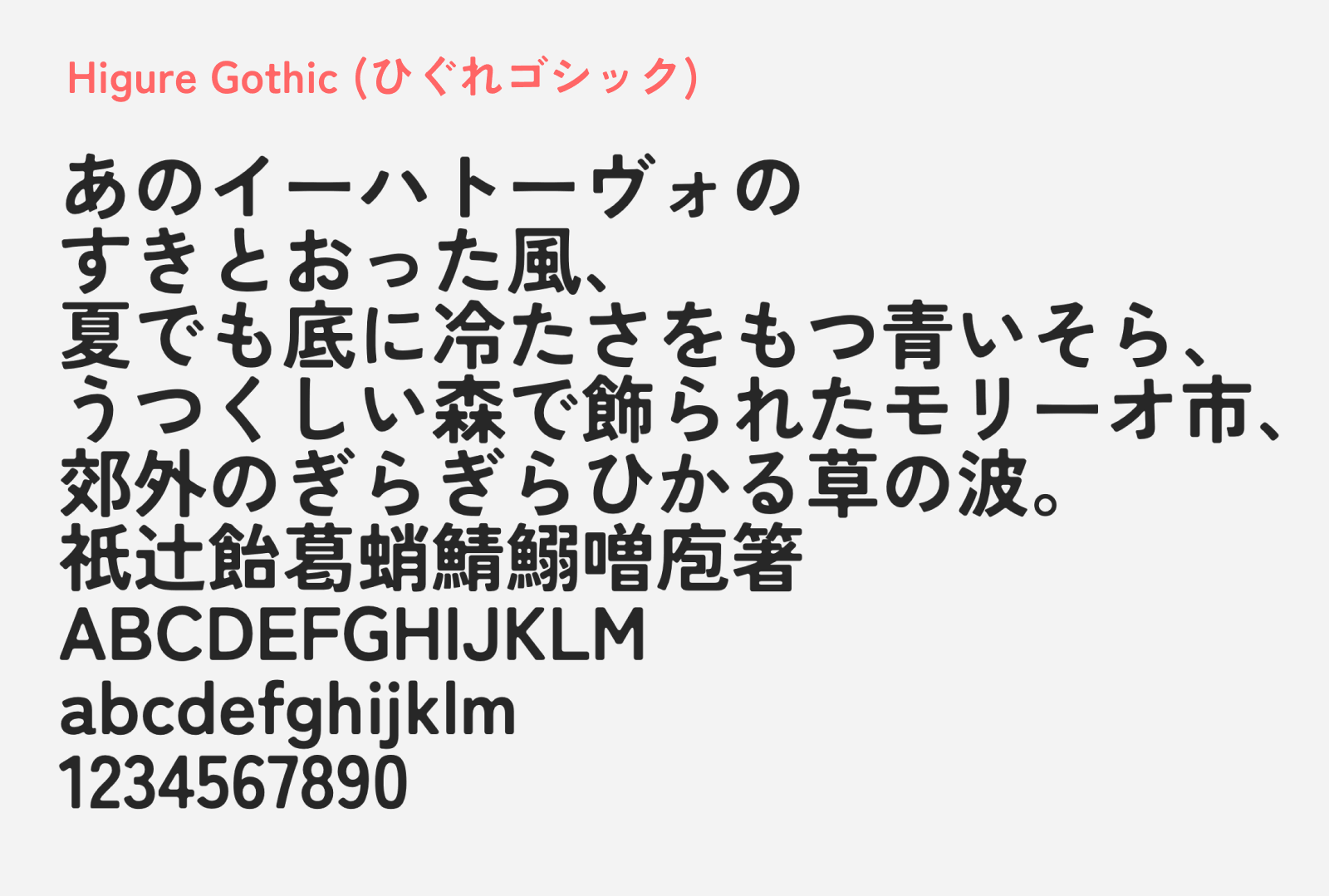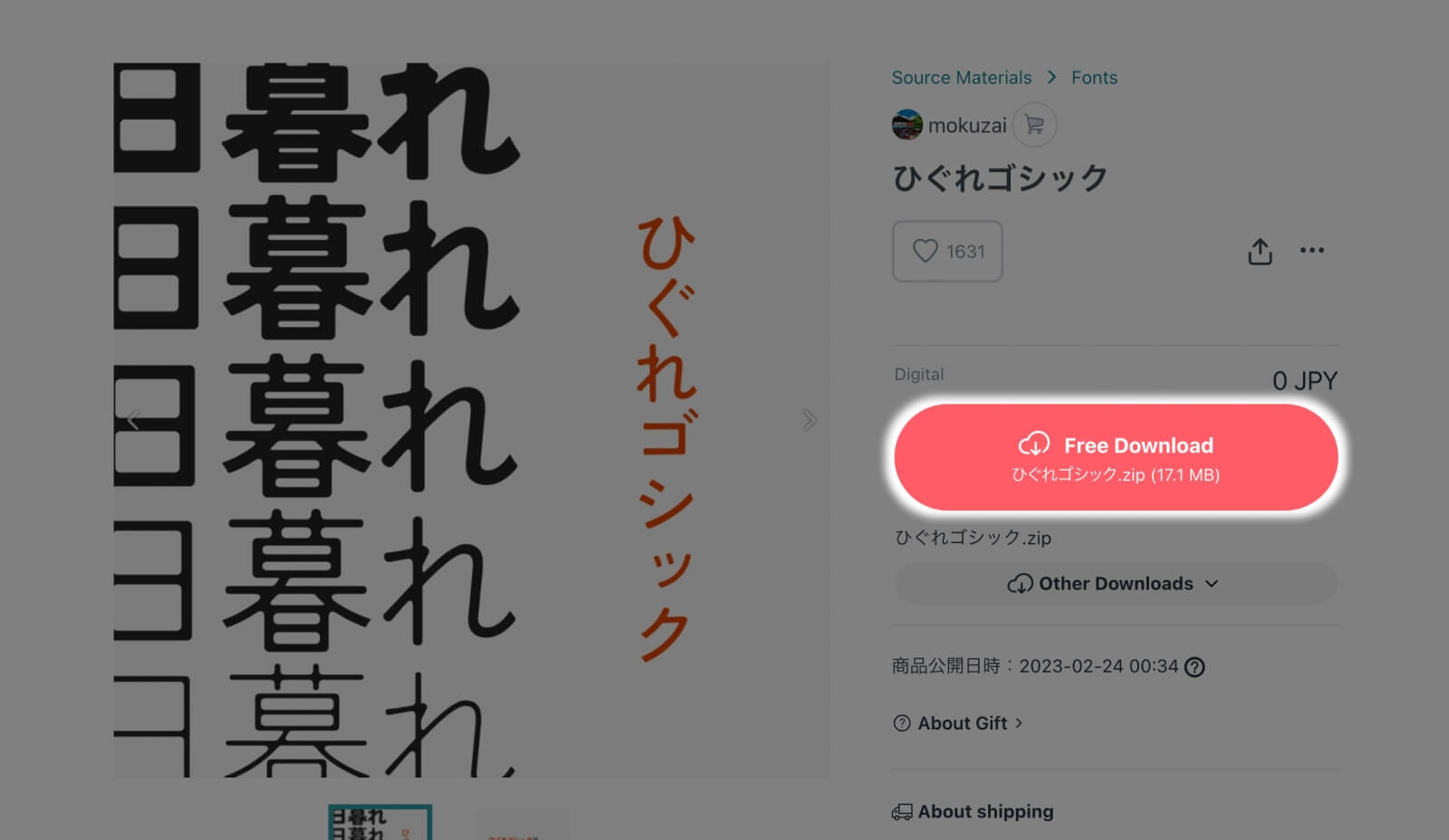
Higure Gothic
Higure Gothic (ひぐれゴシック) is a free-to-download Japanese font created by mokuzai, built by applying rounded corner (角丸) and ink trap pooling (墨だまり) processing to the open-source Zen Kaku Gothic N. Rounded corners soften the hard edges of a standard gothic (sans-serif), giving each character a gentler, more approachable feel, while ink pooling adds subtle swells of weight at the joints and terminals, mimicking the natural behavior of ink in letterpress printing. Together, they take the clean structure of Zen Kaku Gothic and layer on a kind of nostalgic warmth that the base font doesn’t have on its own.
The result is a font that sits in a sweet spot between modern legibility and a soft, retro character. It’s the kind of face you’d reach for when you want the tidiness of a gothic but need something that doesn’t feel too cold or corporate — think indie game interfaces, atmospheric zine layouts, or web designs that want a little personality without going full-handwriting. Since this font was processed entirely automatically, so there may be occasional imperfections in the rendering. This font family comes with 5 weights, giving you flexibility and variety to explore with this font. It’s released under the SIL Open Font License, making it free to use in both personal and commercial projects.
- Hiragana and Katakana
- Kanji (up to JIS Level 1 and 2)
- Alphanumerics
- Symbols and Punctuations